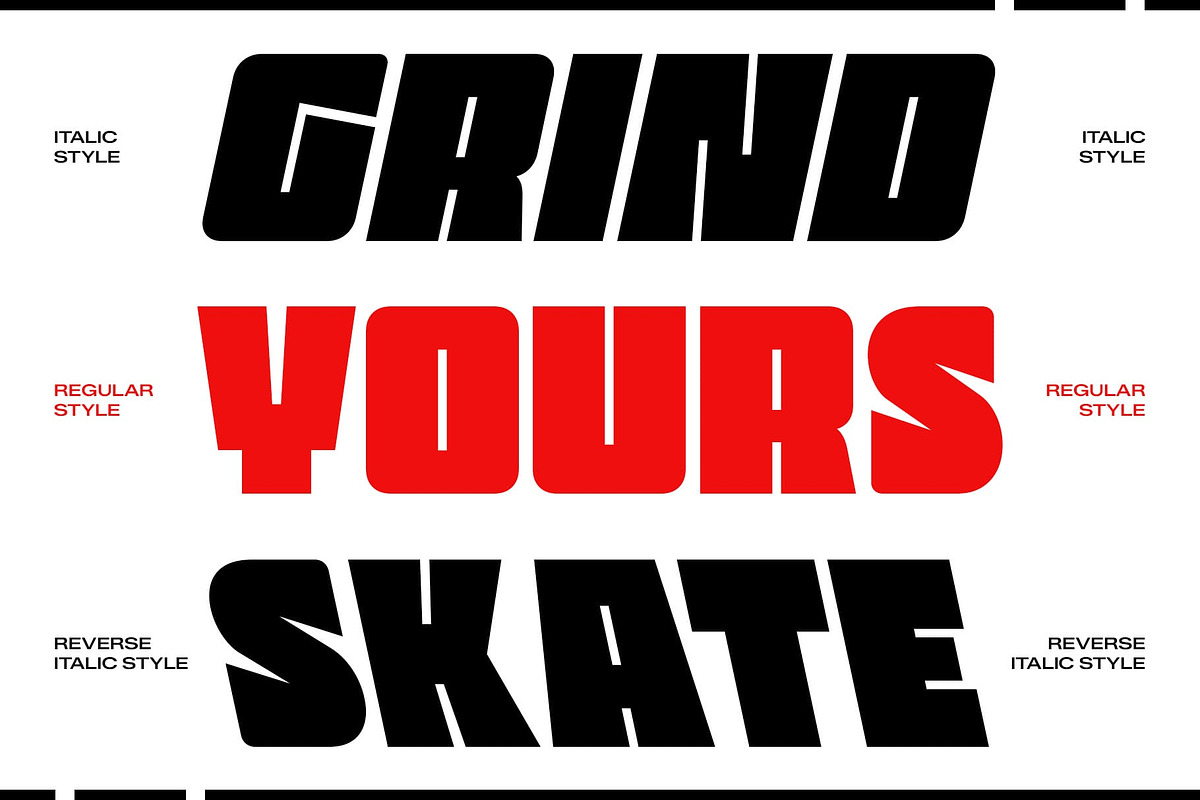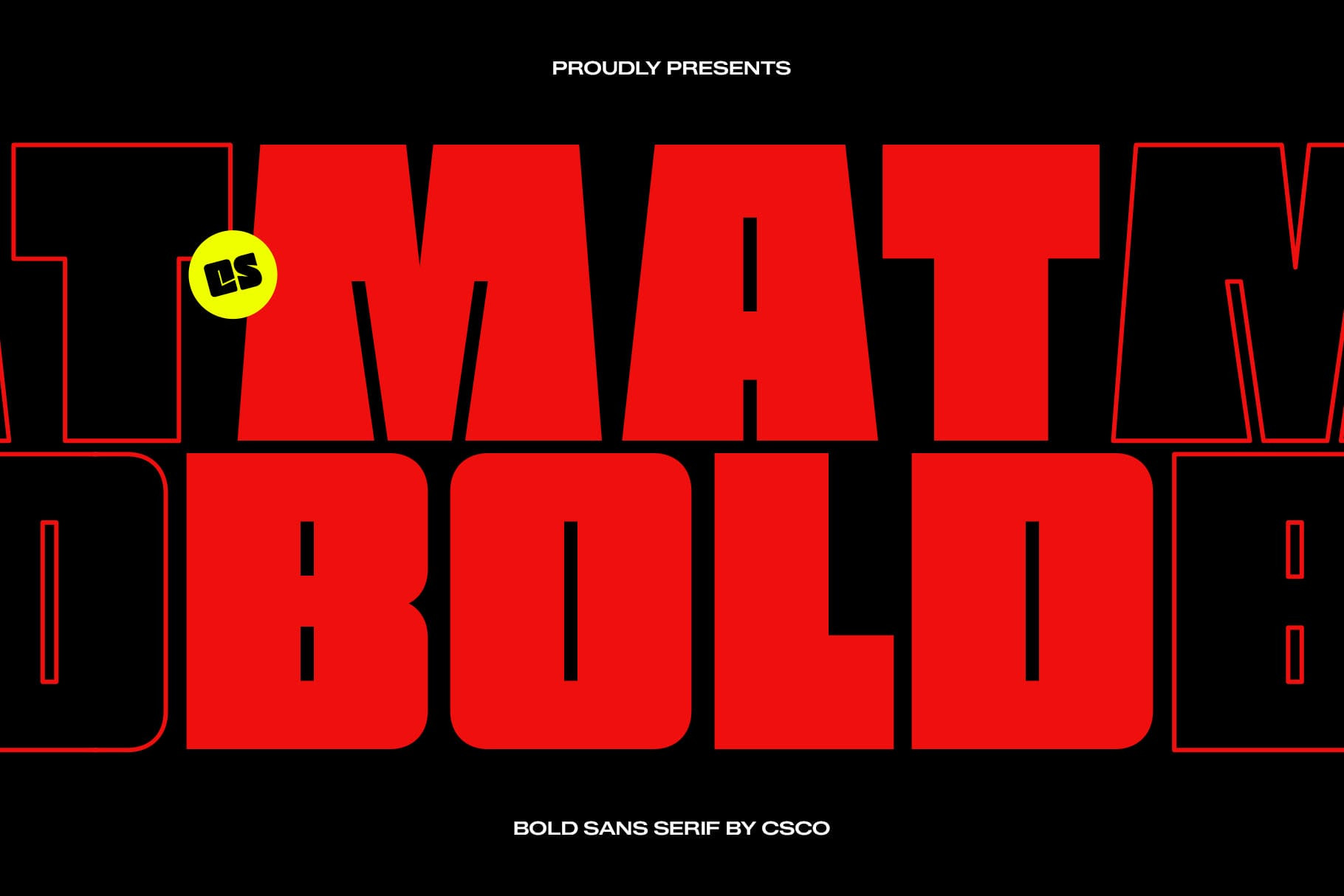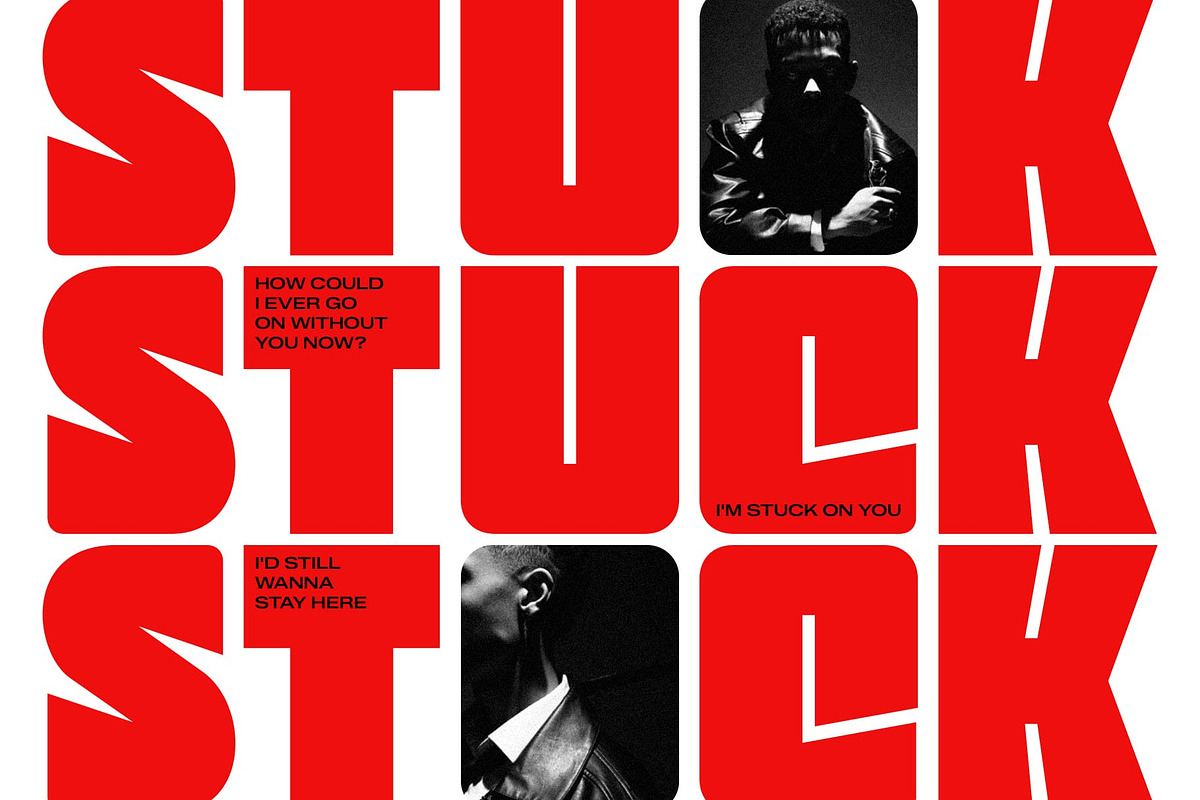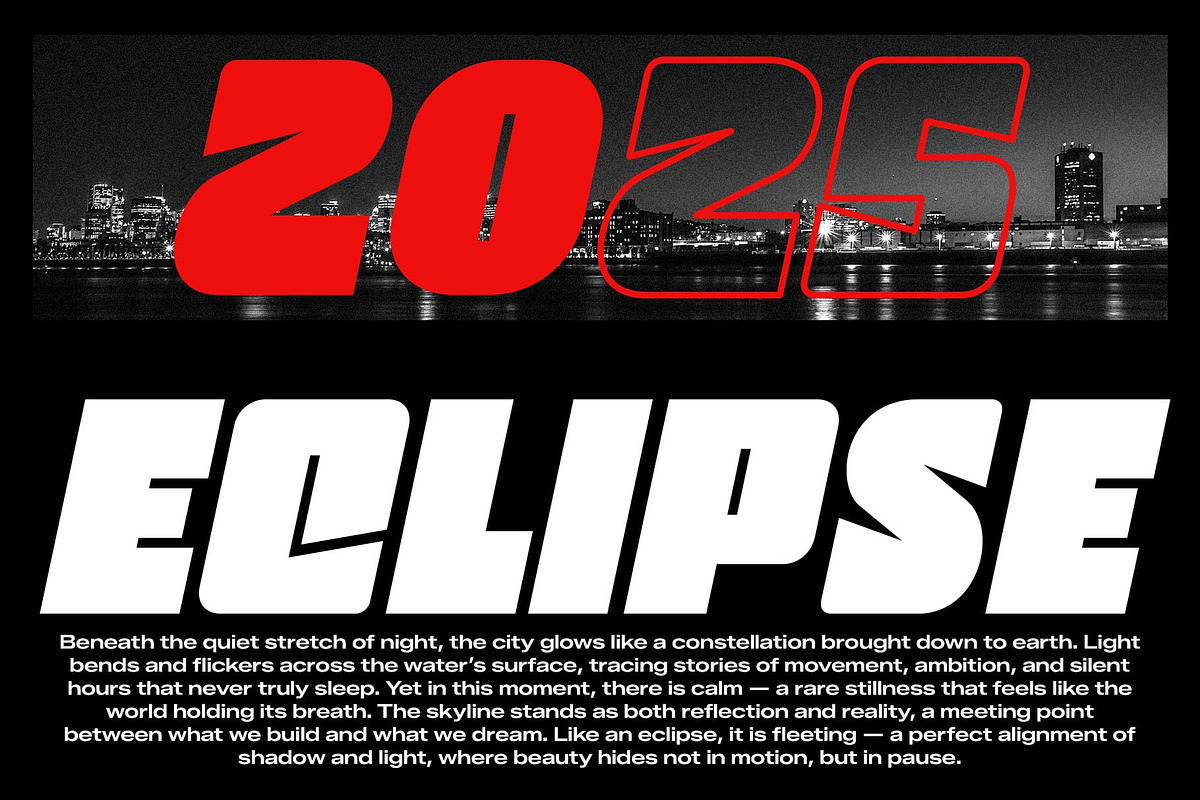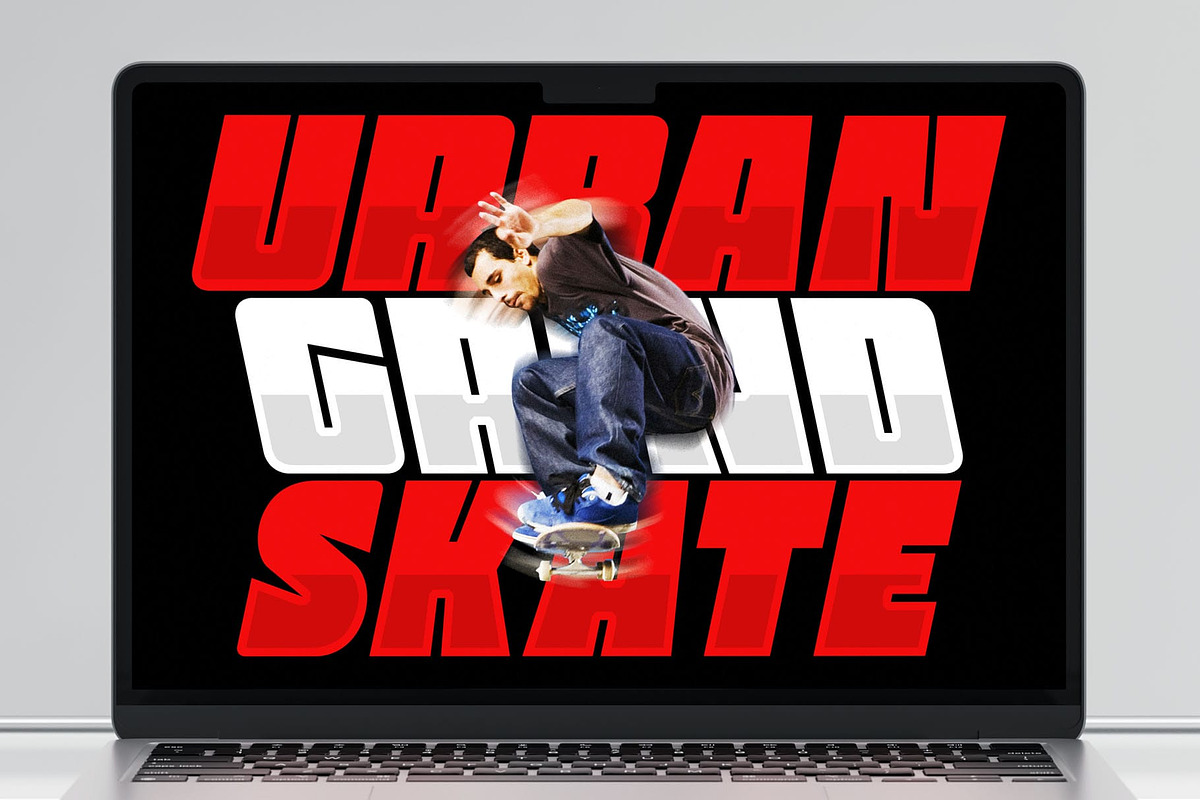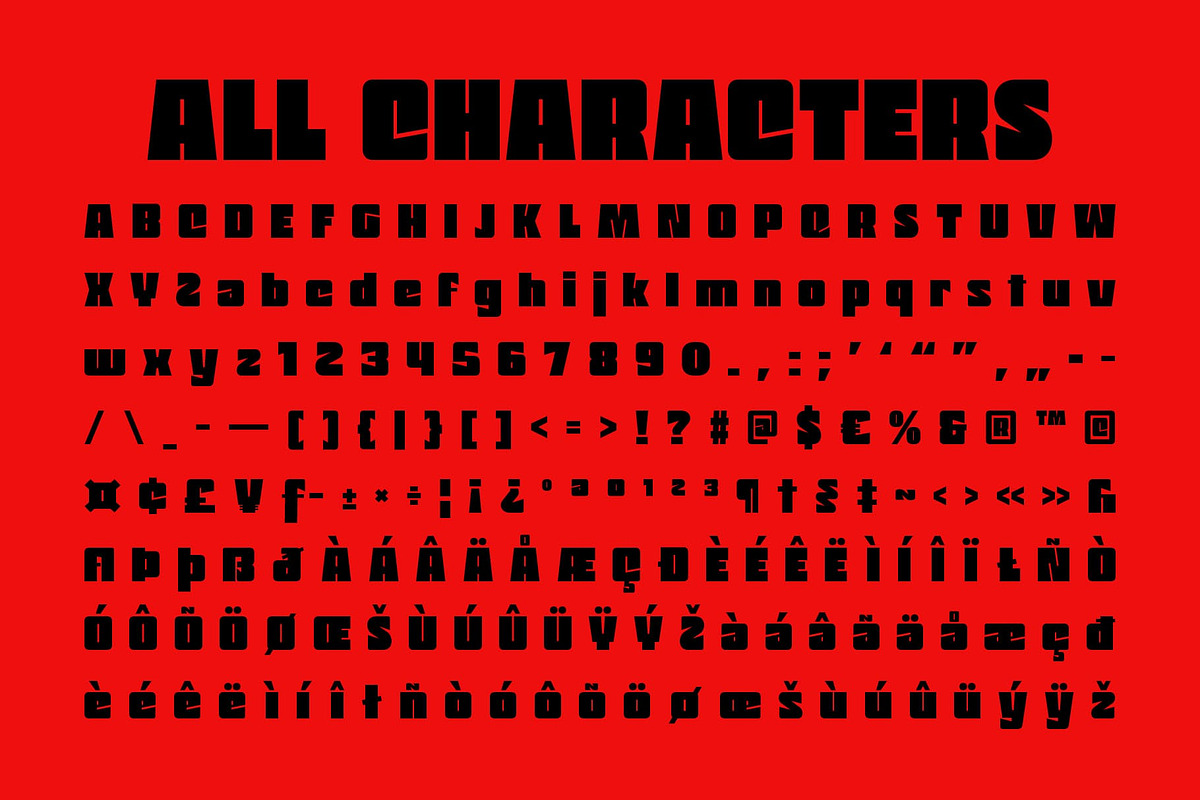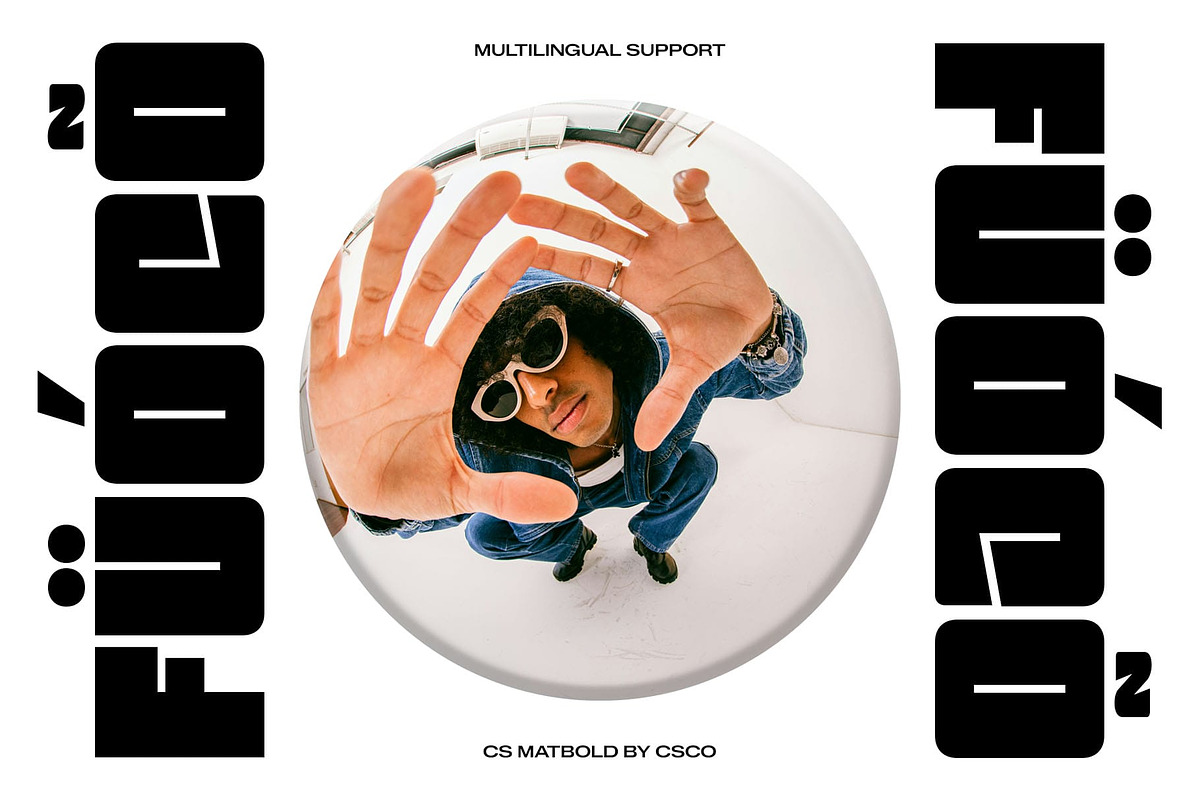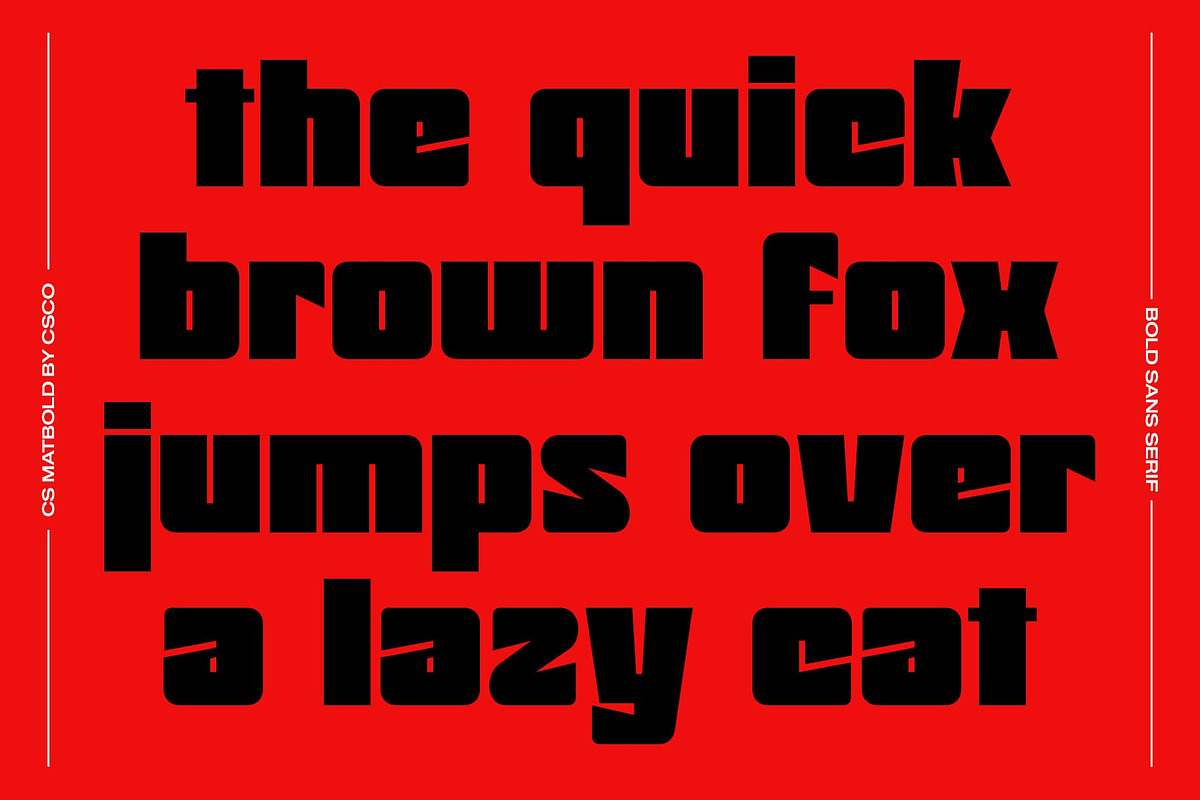
CS Matbold – Modern Thick Font
CS Matbold – Futuristic Strength with Bold Impact
Modern Thick Font with Commanding Presence This is a bold sans serif and striking modern font designed to capture attention instantly. Its thick, confident letterforms convey strength and authority, making it ideal for designs that demand visibility and impact.
Futuristic Style for Contemporary Desig With its sleek, modern shapes and forward-looking aesthetic, this font brings a futuristic edge to any project. The font’s geometric precision and powerful structure create a sense of innovation and modernity, perfect for contemporary visual statements.
Heavy Weight for Maximum Visual Impact The substantial weight of this font ensures strong readability and presence, making it an excellent choice for headlines, posters, and branding that need to stand out. Its bold construction delivers clarity while maintaining a stylish, modern look.
Perfect for Posters, Headlines, and Strong Branding This font excels in projects that require attention-grabbing typography. From impactful posters to memorable branding and dynamic headlines, this font delivers a powerful, futuristic, and unmistakably bold aesthetic that makes every design stand tall.